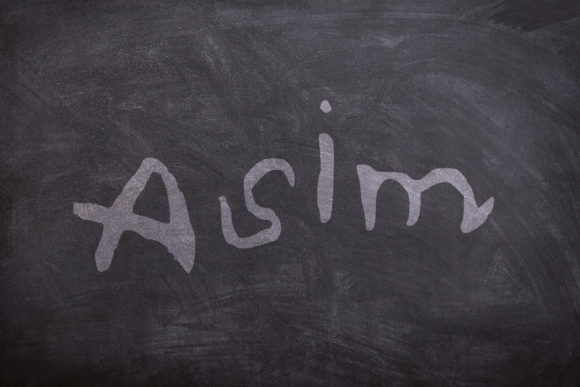
Introducing the Asim Font, a breathtaking script font that's set to transform your design projects into works of art. Experience the remarkable beauty of carefully crafted characters that flow seamlessly with elegant curves and delicate details. Each letter is a masterpiece that exudes sophistication and charm, promising to captivate audiences with its enchanting allure.
Unleash the boundless possibilities of Asim Font, a font family specifically designed to make your resume stand out from the crowd. Its unique style adds a touch of individuality and flair to your professional documents, ensuring that your resume commands attention and leaves a lasting impression on potential employers. Elevate your job application with Asim Font and watch as opportunities come knocking at your door.
With Asim Font by Graphics King, creativity knows no limits. Whether you're a designer working on logos, branding, or marketing materials, or a writer crafting enchanting stories, this font will elevate your projects to new heights. Its versatile nature adapts effortlessly to a wide range of applications, allowing you to explore your artistic vision without boundaries.
Embrace the beauty of Asim Font and witness the transformation of your designs. Its exquisite curves and delicate details will bring life to your creations, leaving an indelible mark on the hearts and minds of your audience. Let the power of Asim Font enhance your design journey and unlock a world of endless possibilities.
Don't let mediocrity hold you back. Step into the realm of excellence with Asim Font, a font that will redefine your creative endeavors. Its elegant charm and timeless appeal will leave an unforgettable impression, setting you apart from the ordinary and propelling you towards greatness. Experience the magic of Asim Font today and embark on a creative journey like never before.